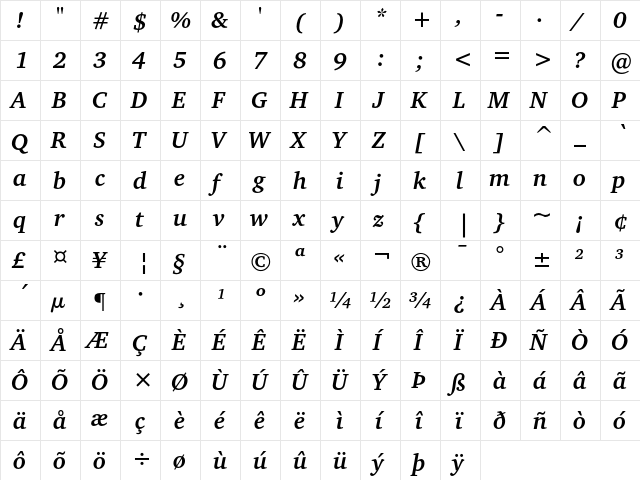
ITC Charter Bold Italic
Design Context for ITC Charter Typeface
ITC Charter is a composed and adaptable typeface that performs quietly and consistently across a wide range of design contexts. The dynamic lean of this cut emphasises speed and emphasis in any layout. The heavy weight commands attention and anchors typographic hierarchies.
Pro Tip: Try ITC Charter for annotation and caption copy alongside an upright companion — the contrast in angle creates a dynamic but ordered typographic system.